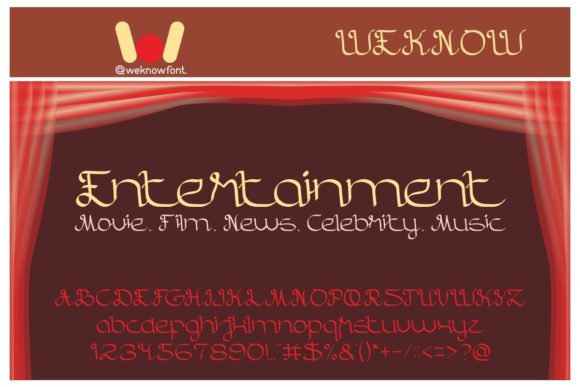
Welcome to the world of intrigue and allure, adorned with the elegance of Entertainment Font. A meticulously crafted script font that will enchant your designs with a touch of artistry and flair.
Entertainment Font is the perfect companion for your artistic endeavors. With its sweeping curves, delicate strokes, and captivating ligatures, it's a font that demands attention. Its distinct charm will elevate your posters, movie titles, magazine covers, and any design that craves a unique and expressive touch.
When you choose Entertainment Font, you're choosing a font that speaks volumes. Its personality is as bold as it is graceful, adding a layer of sophistication and intrigue to every word you write. Imagine your posters adorned with the intricate strokes of Entertainment Font, inviting viewers into a world of wonder and imagination.
But Entertainment Font isn't just for visual appeal; it's also a font that's incredibly versatile. This script font will seamlessly blend with your designs, enhancing their overall impact. It's a font that can effortlessly transition from playful and whimsical to elegant and refined.
Whether you're a graphic designer seeking to create captivating visuals or a creative entrepreneur looking to make a statement, Entertainment Font is your perfect partner. Its artistic flair will elevate your designs and leave a lasting impression on your audience.
So, embrace the allure of Entertainment Font. Let your creativity run wild and watch as your designs transform into masterpieces. With this font by your side, the possibilities are endless.